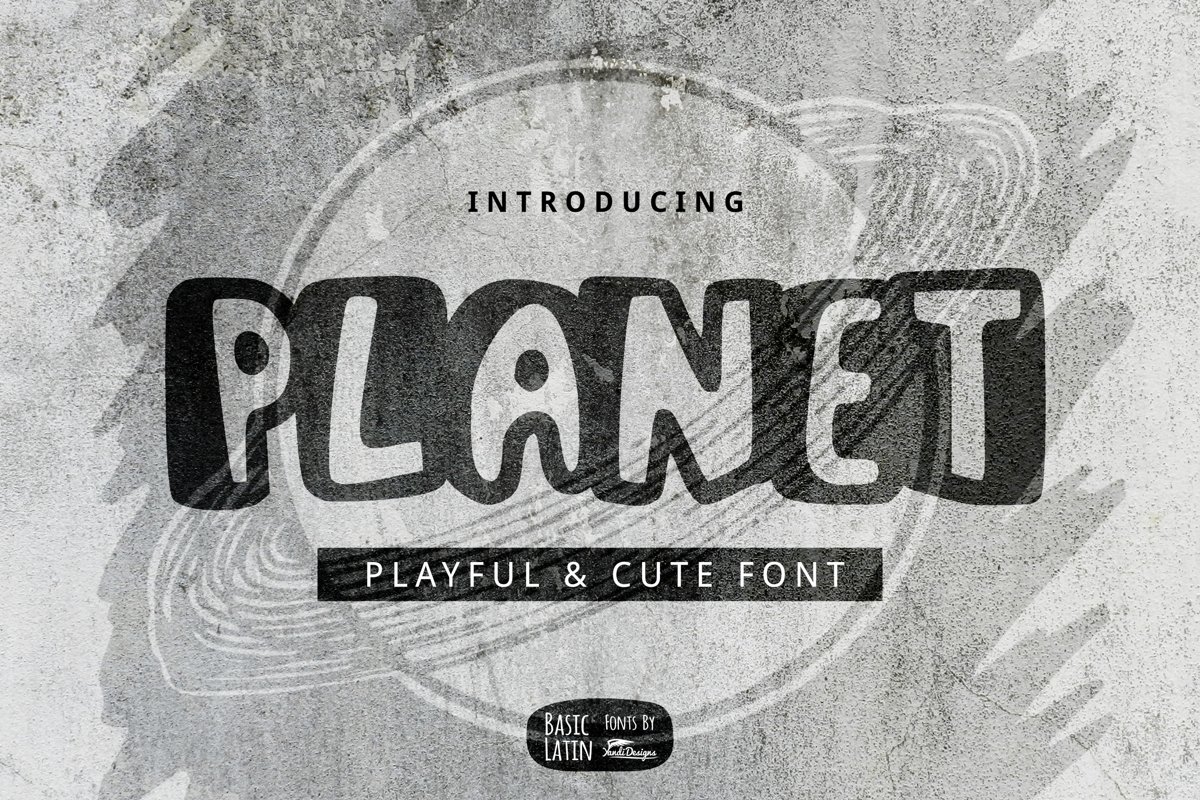
Planet Font
Planet font is simple playful cute multipurpose handmade font , suitable for many project children book, quotes, logo , heading , title etc.